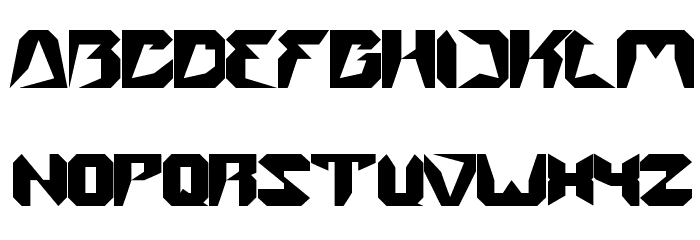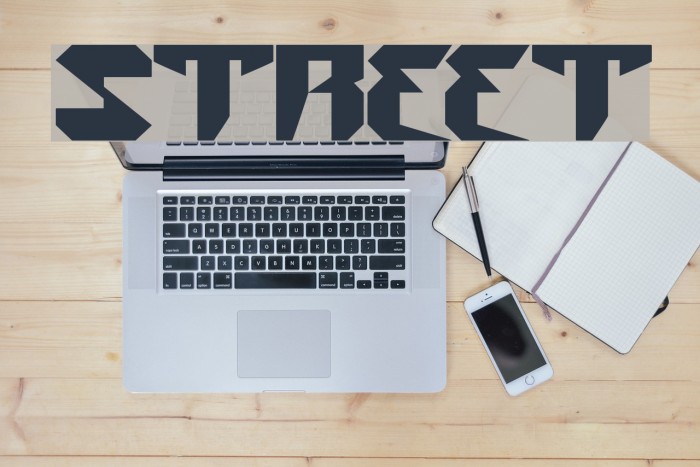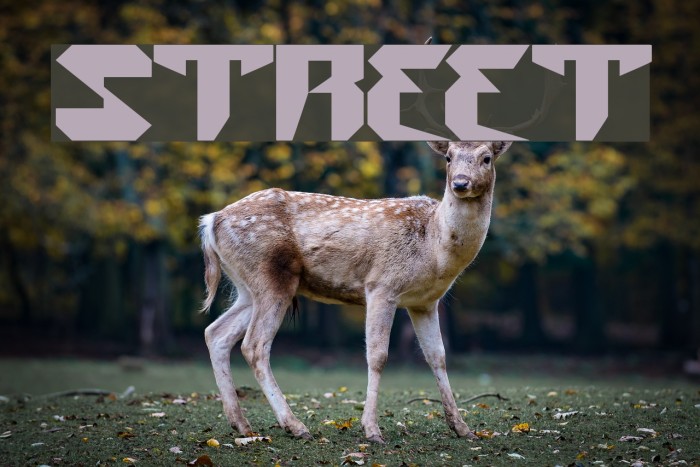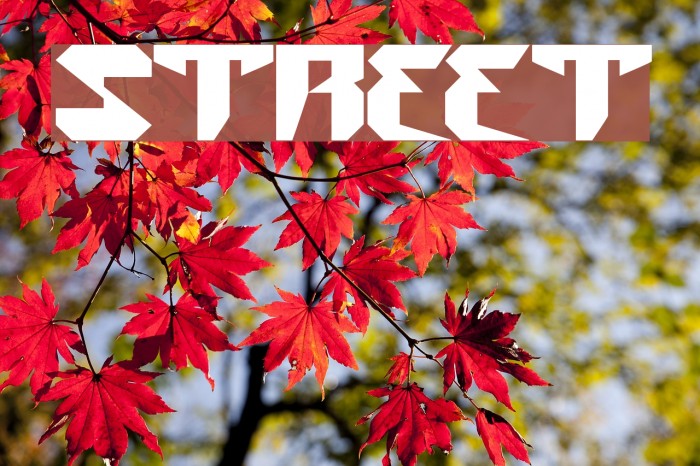
street Font
This font features a bold, angular design with sharp, geometric edges that create a striking and modern appearance. The characters are constructed with a series of straight lines and pointed corners, giving them a futuristic and edgy look. The uppercase letters are particularly prominent, with each character maintaining a consistent height and width, contributing to a uniform and cohesive style. The font's unique structure makes it stand out, ideal for projects that require a strong visual impact. Its boldness and distinctiveness make it suitable for headlines, logos, and branding materials where attention-grabbing typography is essential.
A bold, angular font with sharp, geometric edges for a modern, edgy look.
- Proposed Projects: Ideal for use in branding, logos, headlines, posters, and any project requiring a strong visual impact.